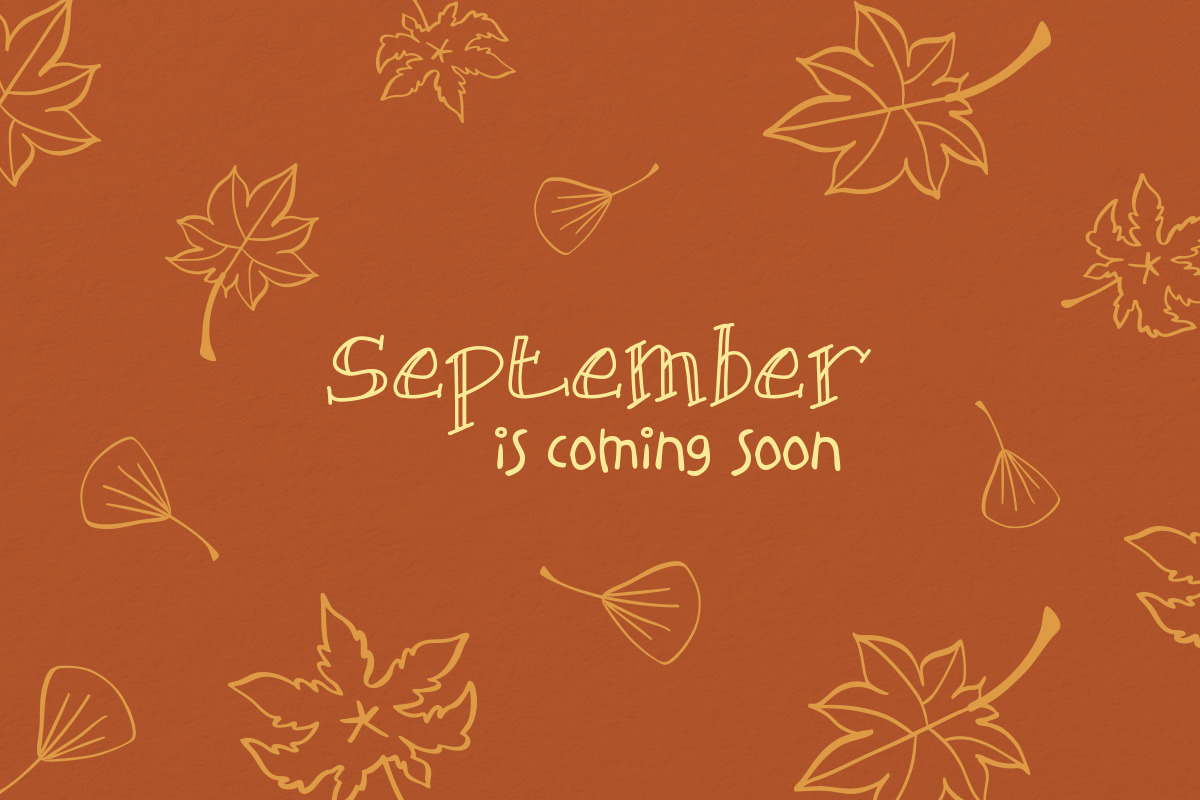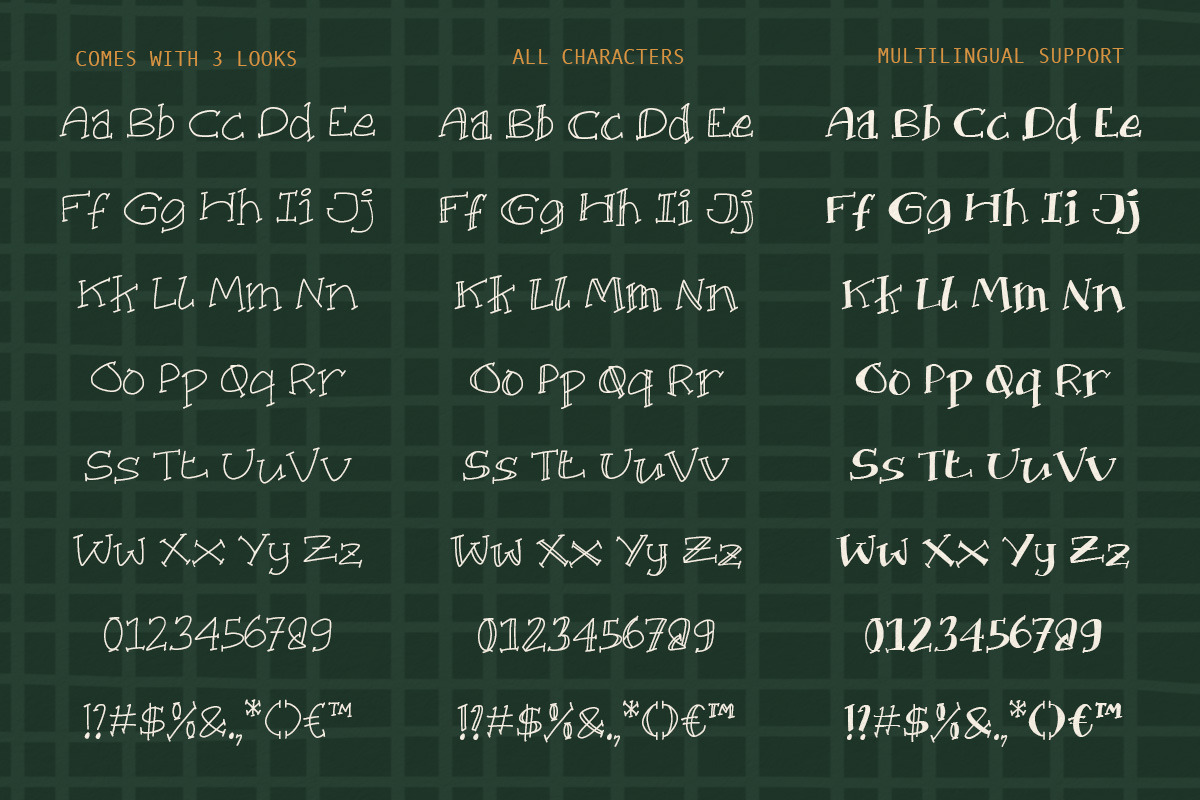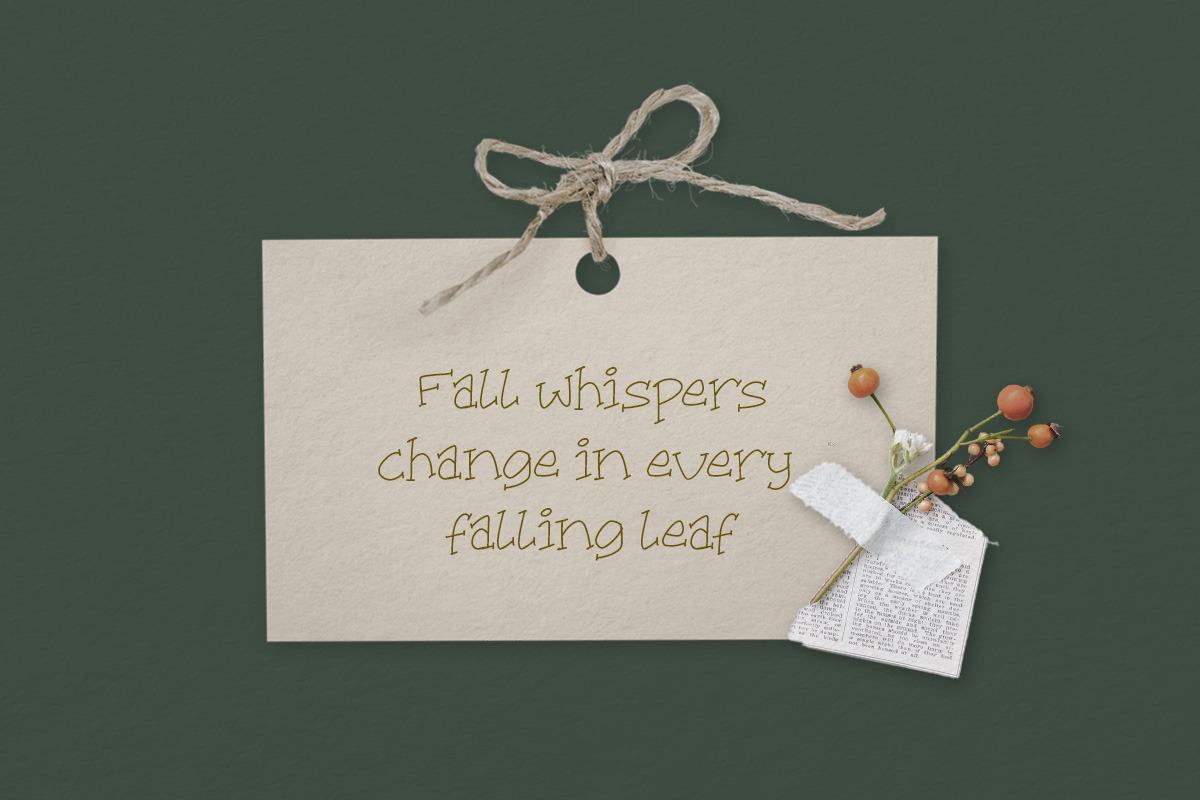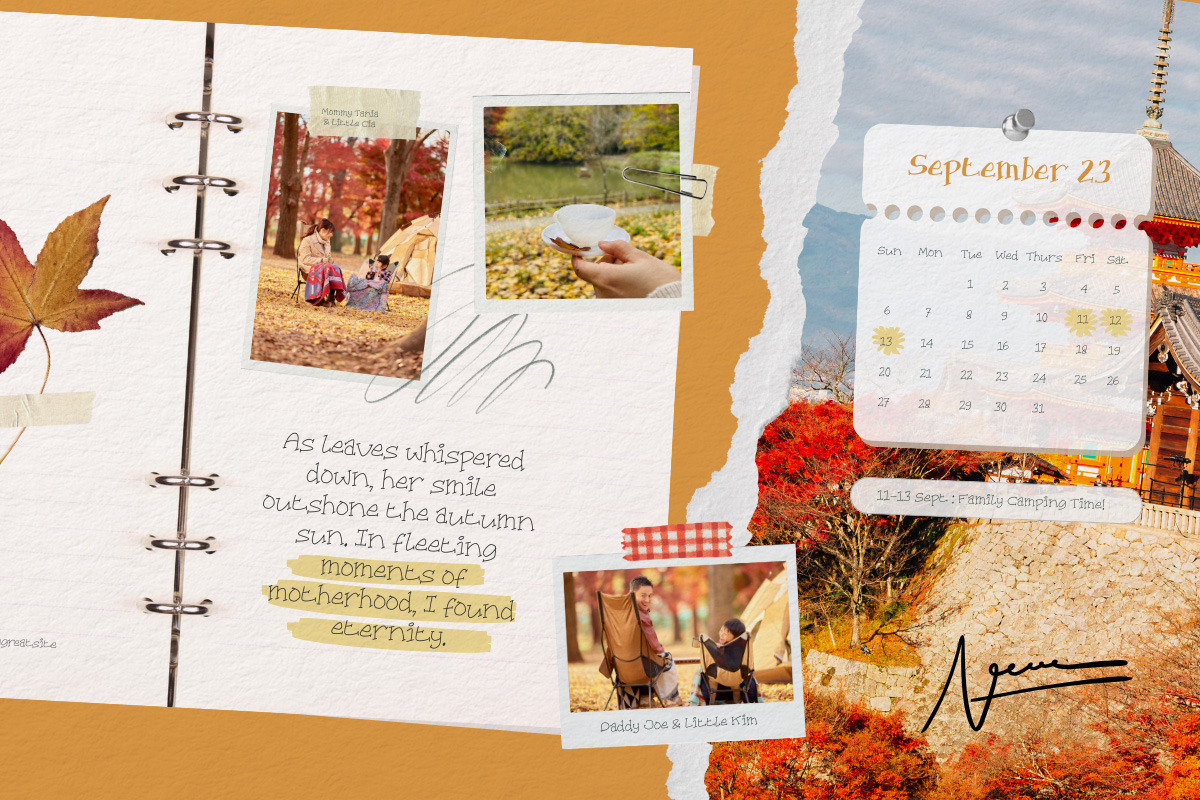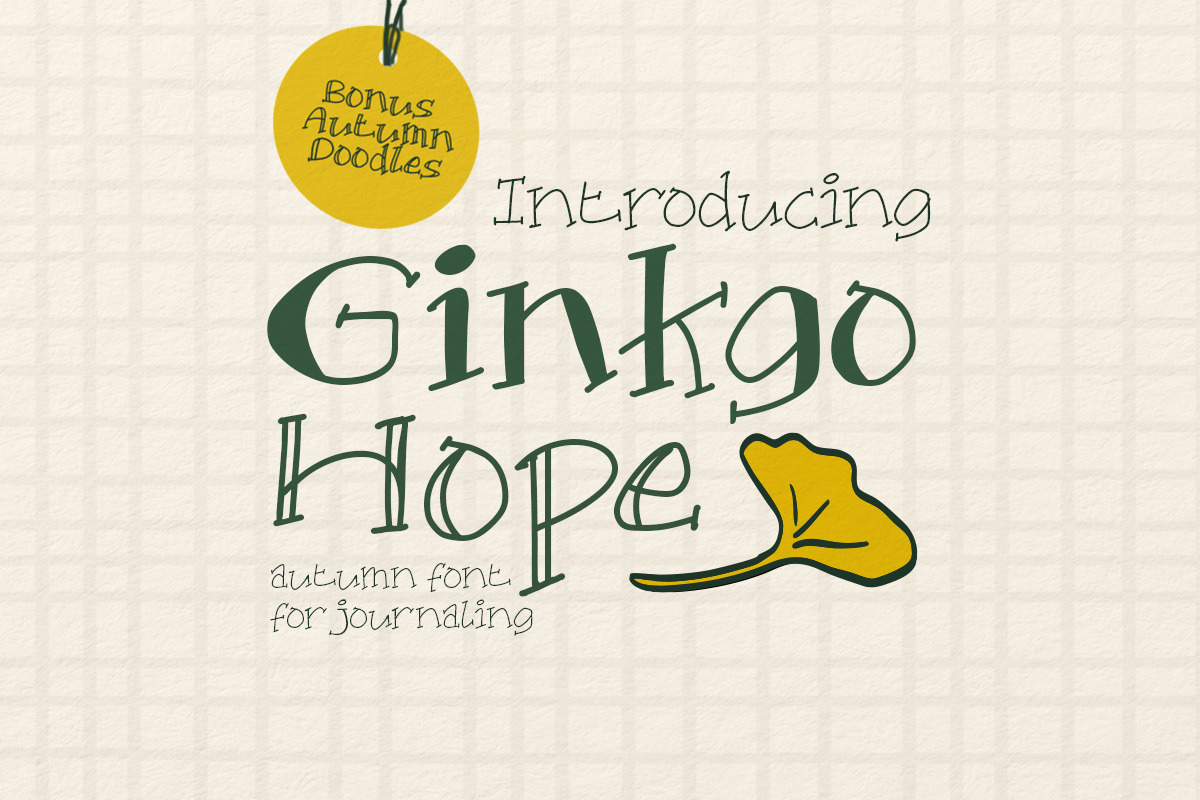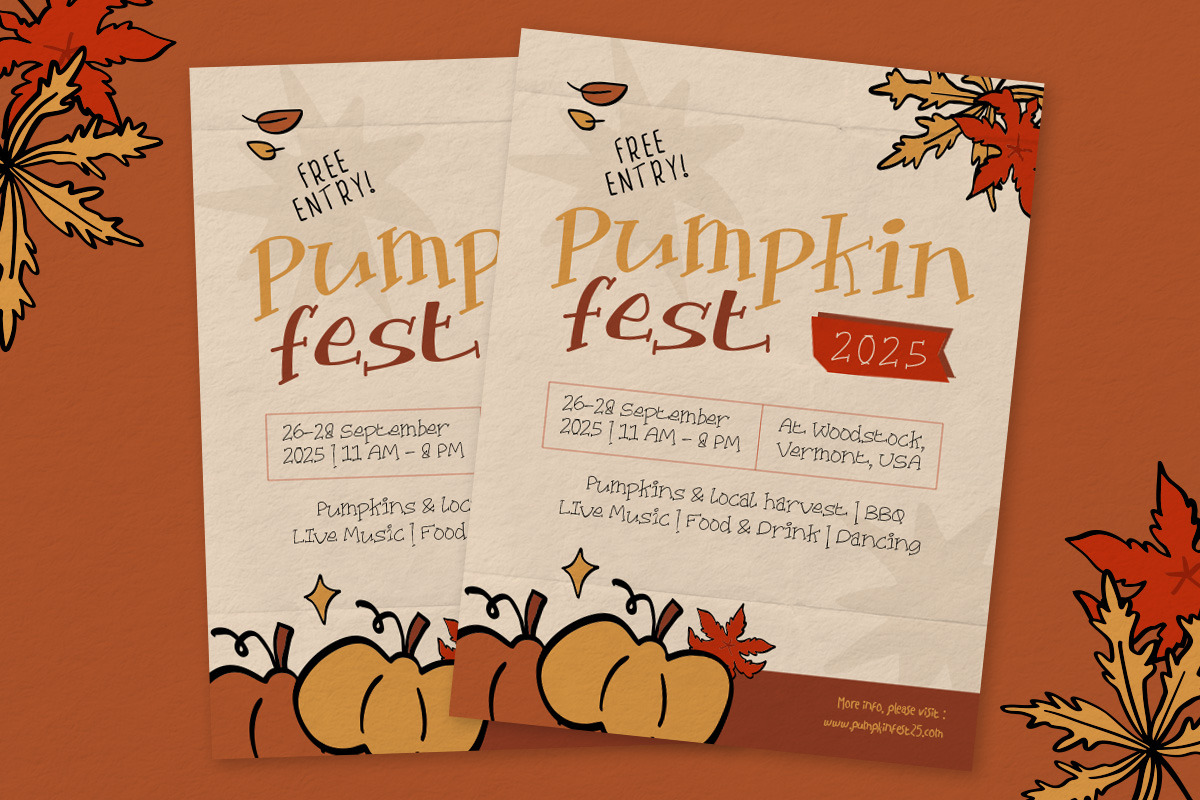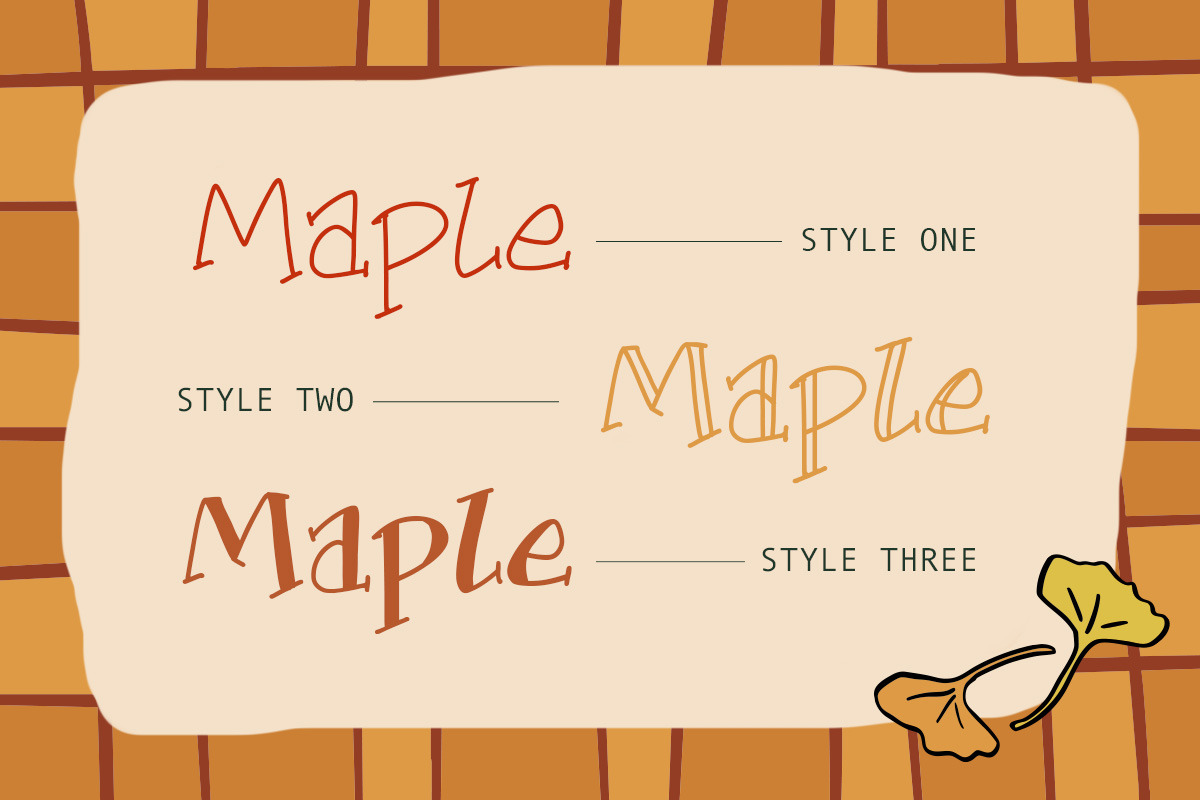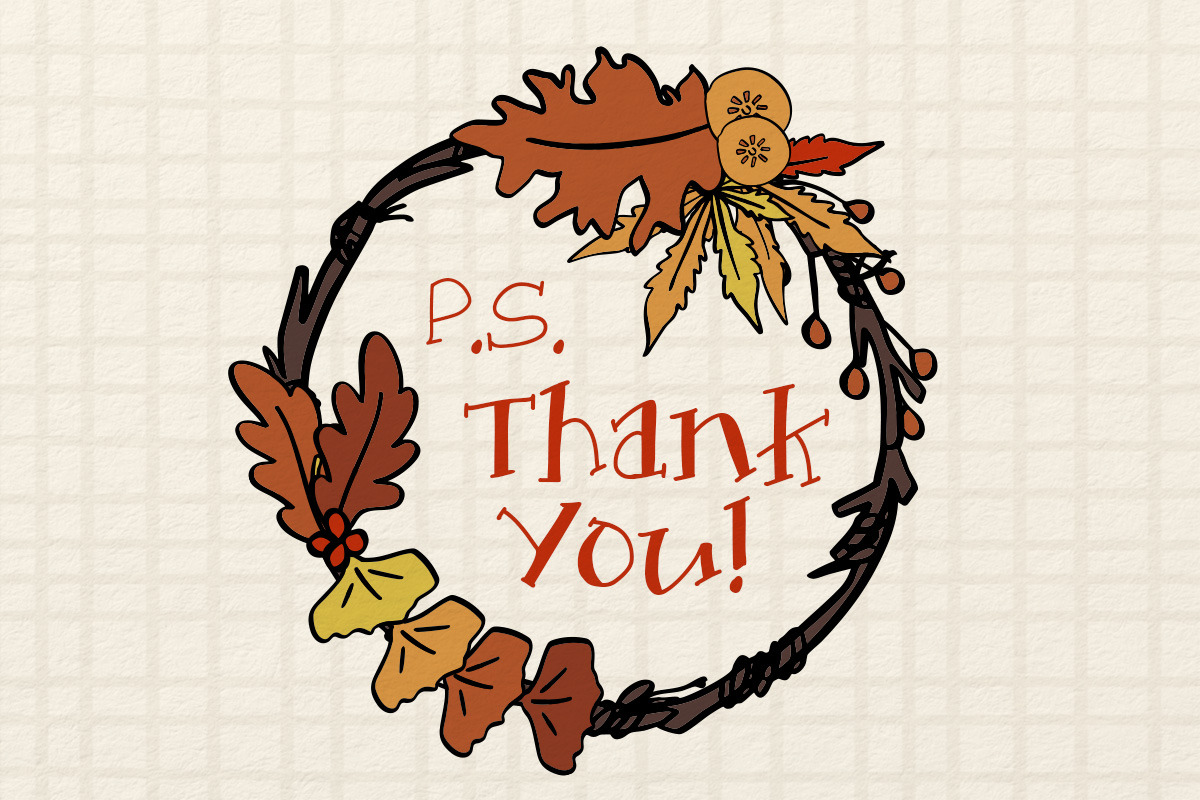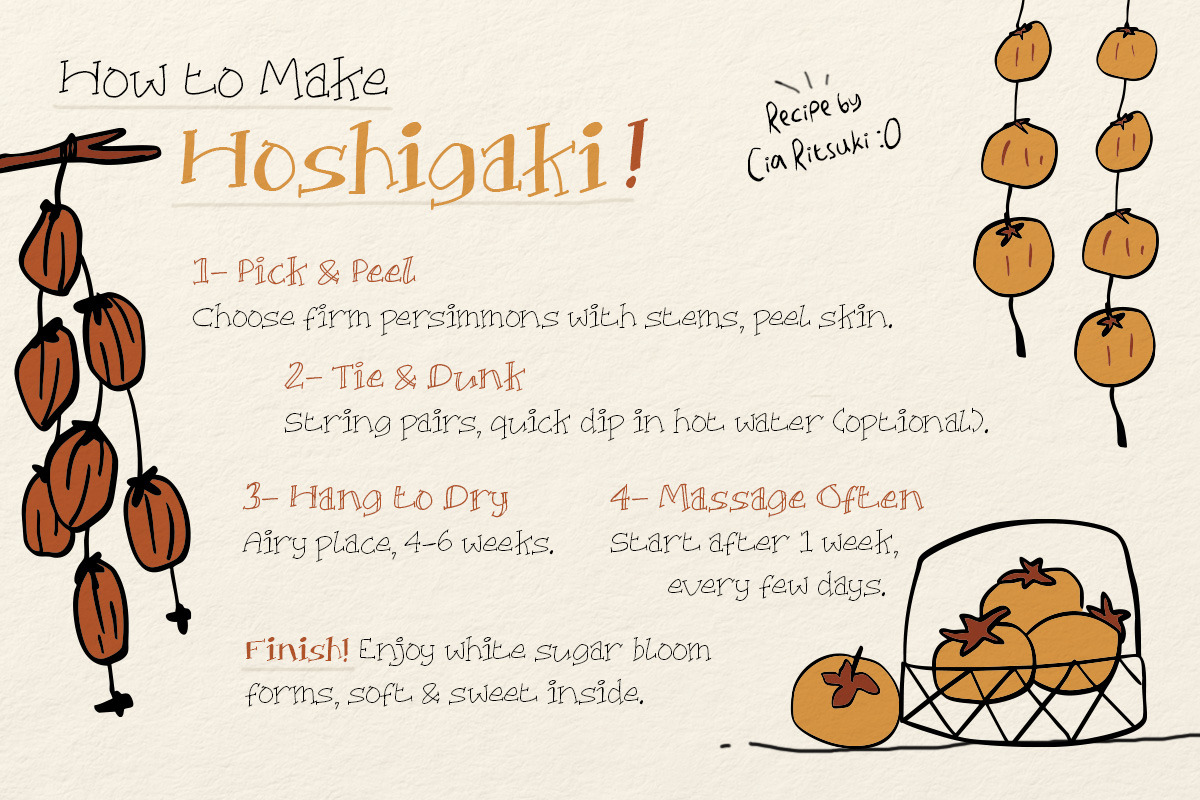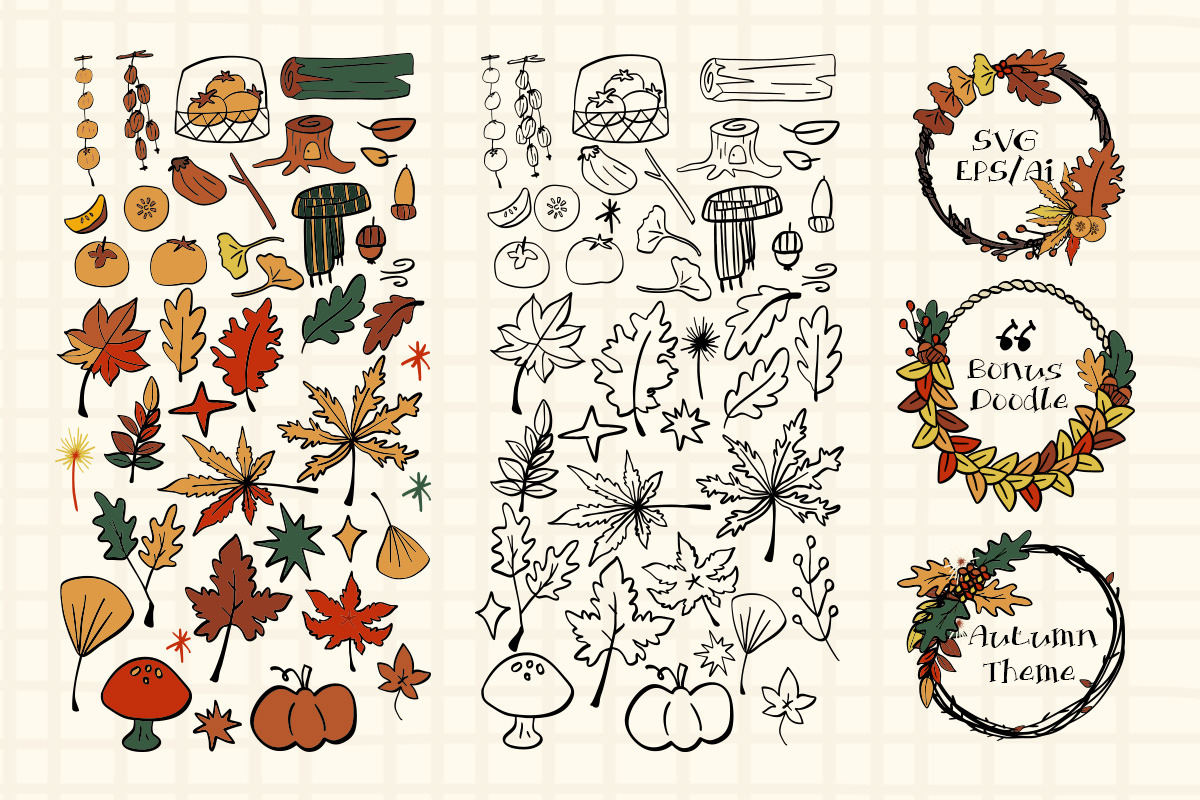
Ginkgo Hope Journaling Font
Ginkgo Hope is a cozy handwritten font inspired by the calm beauty of autumn journaling. Its playful yet gentle strokes capture the feeling of warm notes written between falling leaves and golden sunsets. Perfect for digital diaries, planners, scrapbooks, quotes, invitations, and seasonal projects. It comes with 3 styles to take your creations to the next level and express your unique signature style.